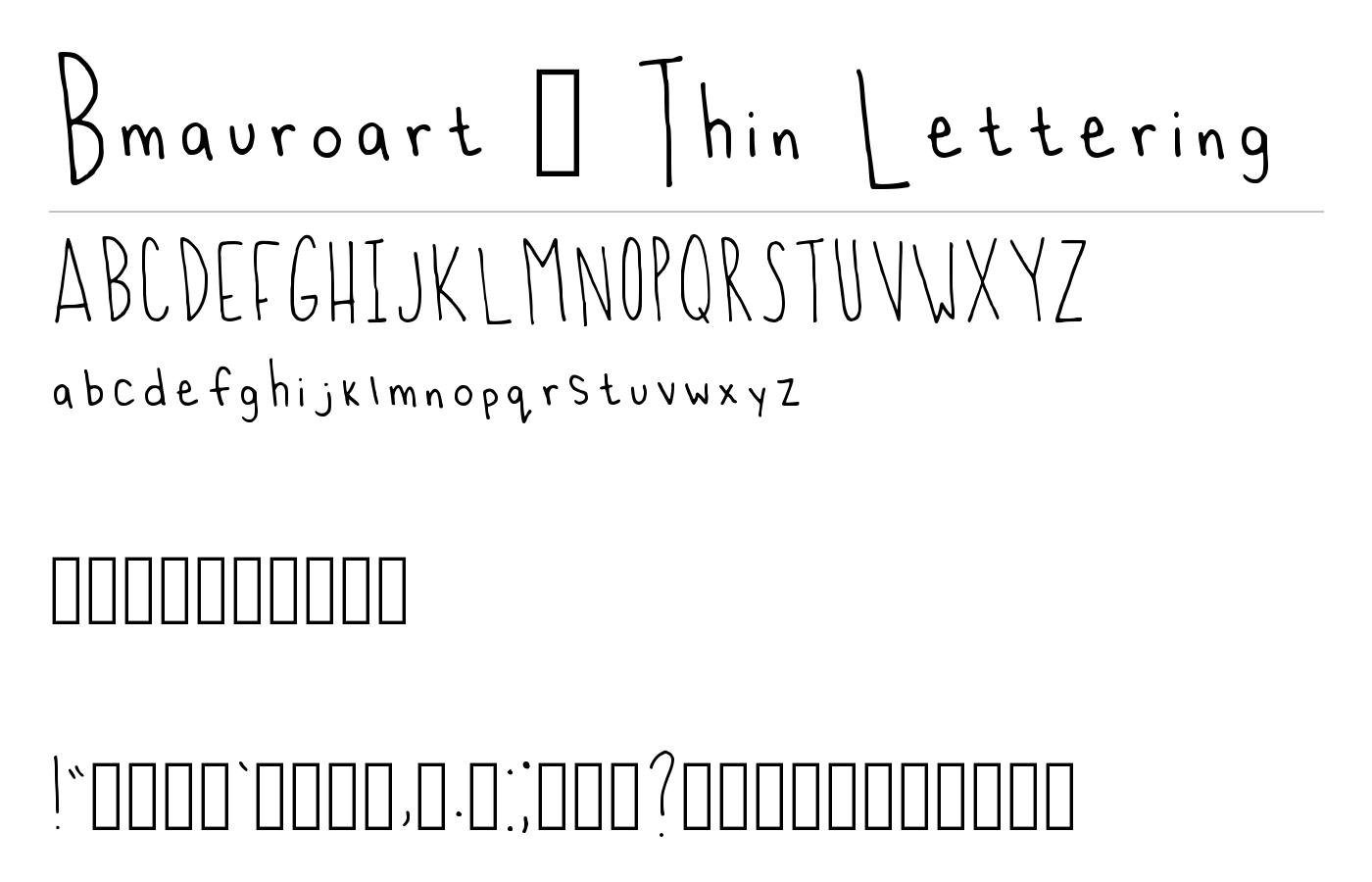
Bmauroart Thin Lettering is a delicate, hand-drawn sans serif font with a tall, narrow structure and playful, organic shapes that give it a charming and approachable feel. Its thin strokes and irregular, casual letterforms make it ideal for creative projects that seek a personalized, friendly touch, such as invitations, handmade branding, or artistic headlines. This font works best where an informal, quirky style is desired, adding warmth and character without overwhelming the design.
Bmauroart _ Thin Lettering Font
About Bmauroart _ Thin Lettering Font
| Font family | Bmauroart _ Thin Lettering Font |
| Font subfamily | Thin |